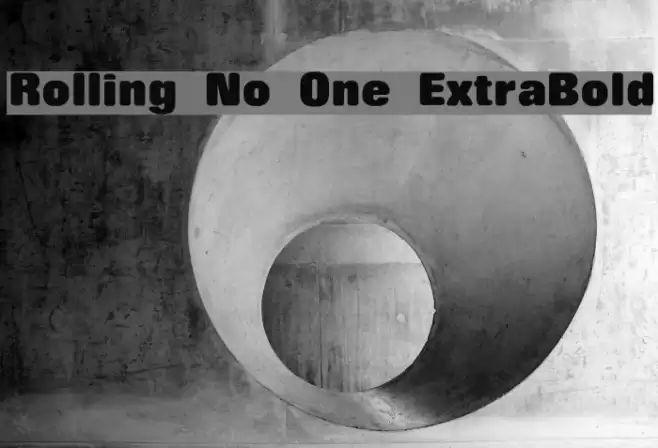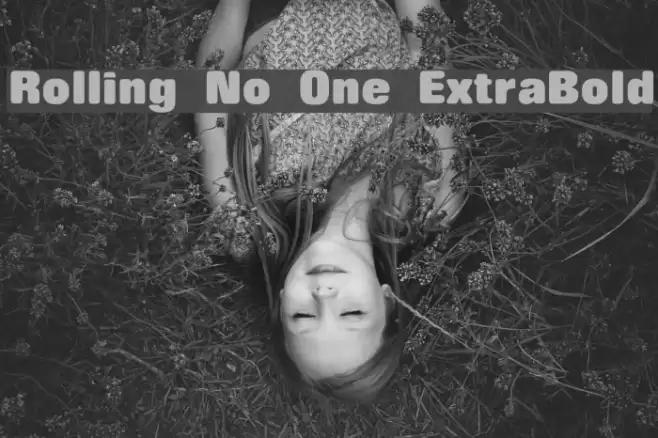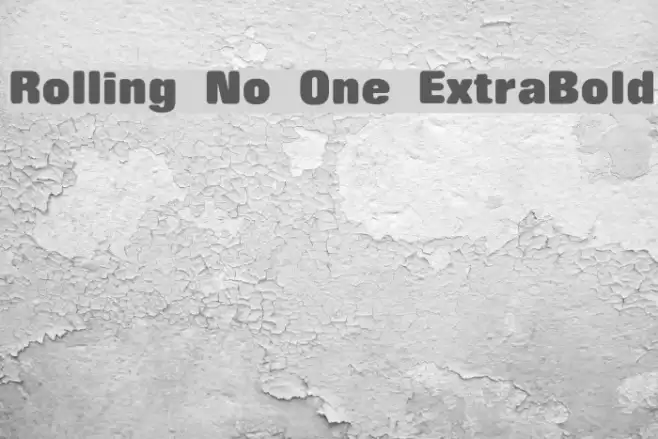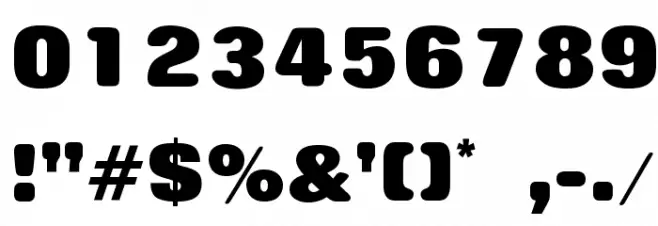
Rolling No One ExtraBold Font
Rolling No One ExtraBold Description
This font is characterized by its bold and robust appearance, featuring thick, rounded strokes that convey a sense of strength and modernity. The uppercase and lowercase letters maintain a consistent weight, providing a uniform look across all characters. The numerals and special characters are equally bold, ensuring readability and impact. Its design is straightforward yet powerful, making it suitable for attention-grabbing headlines and logos. The rounded edges soften the overall look, adding a friendly and approachable feel to the otherwise strong and assertive style.
A bold, rounded font with a strong, modern appearance from Sans Serif fonts.
- Proposed Projects: Ideal for branding, headlines, posters, and any design requiring a bold statement.